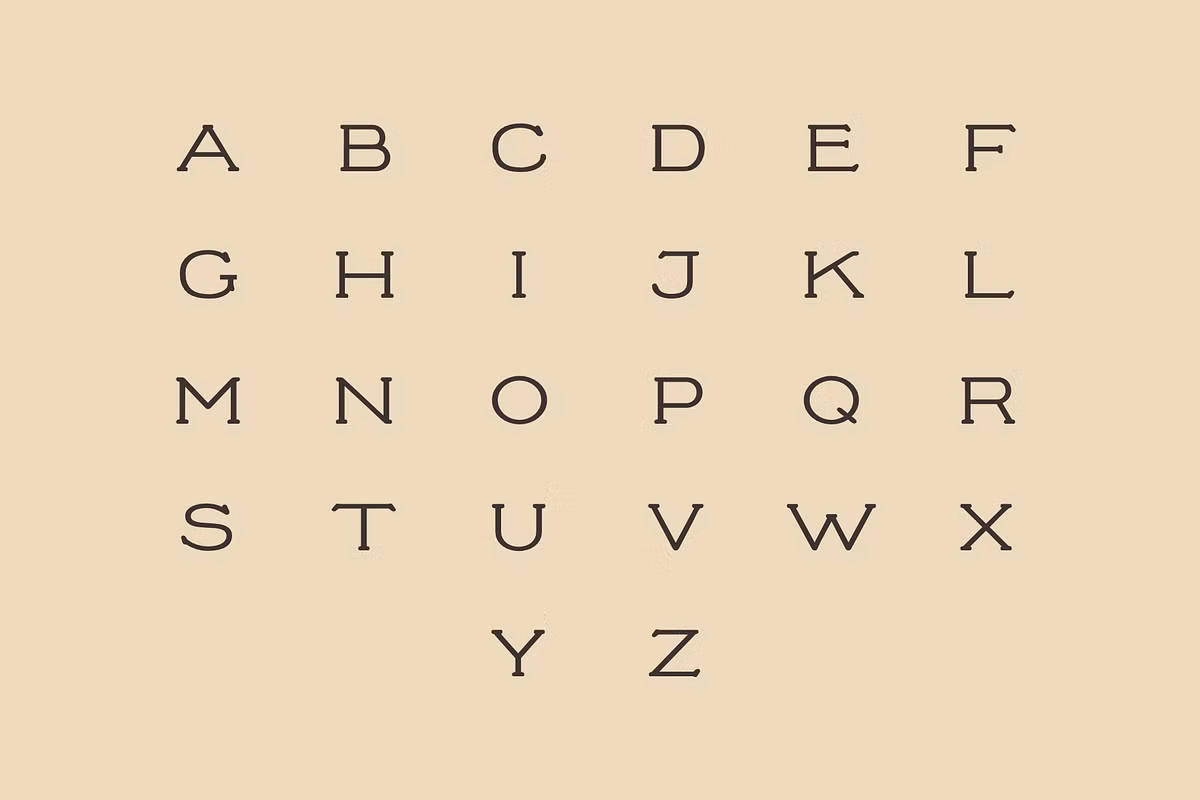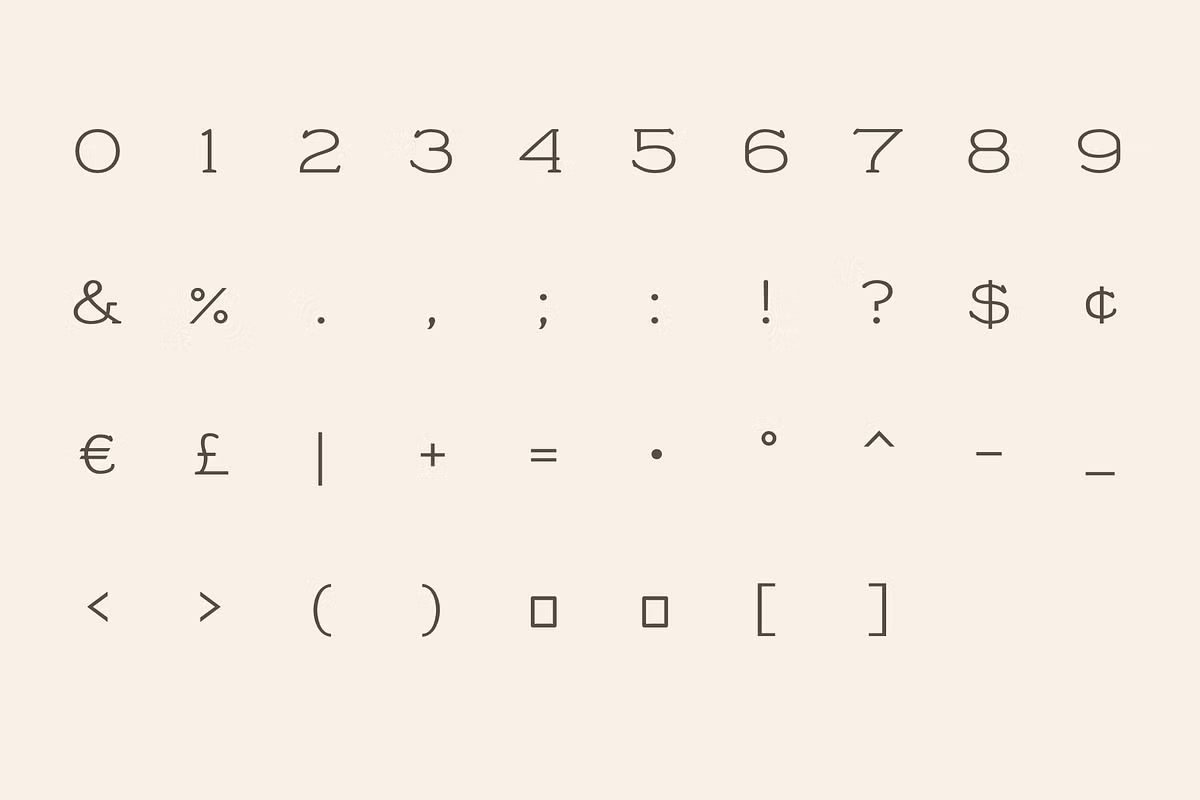
Prospect Display Font: Antique-Style All-Caps Typeface for Design
The Prospect Display Font is a style all caps typeface. The Prospect Display Font makes an impact in design projects. The Prospect Display Font has a look that fits people who want a classic feel. The Prospect Display Font shows a shape and strong look. The Prospect Display Font stands out in print and on screen. I have used the Prospect Display Font. I see the look the Prospect Display Font gives to my work.
Prospect Display Font showcased in a design project.
Design Style of the Prospect Display Font
The design style of the Prospect Display Font comes from traditions. The Prospect Display Font has curves and strong serifs. The Prospect Display Font is an all-caps typeface. The Prospect Display Font captures the look of signs and classic books. I think the Prospect Display Font works well for projects that need a touch of class.
Designers made each letter in the Prospect Display Font carefully. The designers kept the letters balanced. The font has contrast between thin strokes. The contrast gives the characters a feel. The font style makes the font easier to read. Also makes the font look good. Readers find the font clear.
Detailed view of the font’s unique letter design.
The antique look works in design projects. The Prospect Display Font works on invitations. The Prospect Display Font works on branding. The Prospect Display Font works on layouts. The Prospect Display Font works on posters. If you want a vintage feel or a clean classic look, the Prospect Display Font matches your idea. I have used the Prospect Display Font in those situations and the Prospect Display Font fits the style.
Character Set and Features
When I work with the Prospect Display Font I notice that the Prospect Display Font has a full character set. The Prospect Display Font covers characters. The Prospect Display Font includes letters, numbers, and a few punctuation marks. The Prospect Display Font gives me all the tools I need for my design projects.
• Uppercase Letters: The font only uses letters. Uppercase letters add a commanding feel to any text.
• Numerals: Numerals match the style of the letters. When you use numerals that match the style of the letters, numerals keep the typography consistent across the design.
• Punctuation Marks: The set includes punctuation symbols. The set of punctuation marks lets you write in contexts. I use the punctuation marks set in my writing. You can use punctuation marks in letters, emails, reports, or any other text.
The features of the Prospect Display Font make the Prospect Display Font look good. The Prospect Display Font works well for projects.
Different applications of the Prospect Display Font in design.
Use Cases for the Prospect Display Font
I have found that the Prospect Display Font works in design situations. Here are some ways to use the Prospect Display Font:
• Branding: Branding uses the font to make a logo that people remember. Branding uses the font to make a brand identity that feels vintage or classic.
• Posters and Flyers: The all-caps design catches the eye. The all-caps design works well for event posters, promotional materials, and flyers that need to grab attention.
• Editorial Design: You can put the font in magazine headlines or book covers. The font will make the design feel classy and polished.
• Invitations: The Prospect Display Font works for weddings, parties, and other events. The Prospect Display Font gives a look to invitations and announcements.
I use the look of the font. The message comes through with style and impact.
Pairing Suggestions for the Prospect Display Font